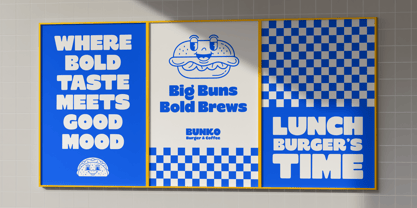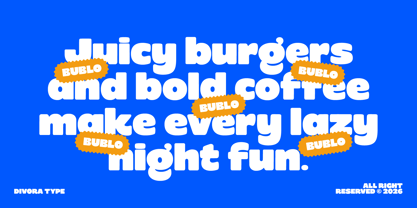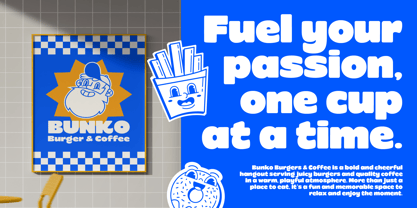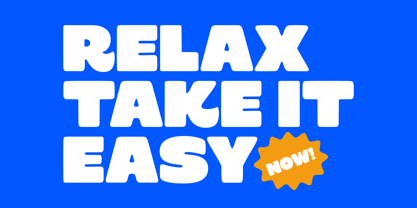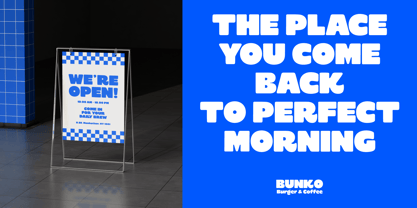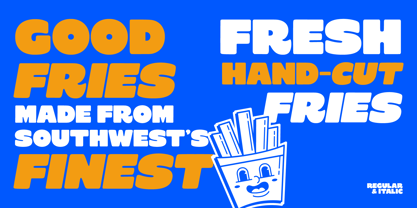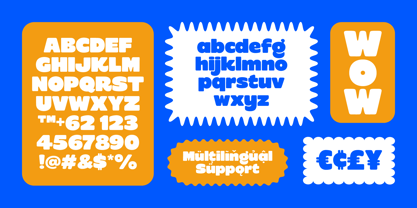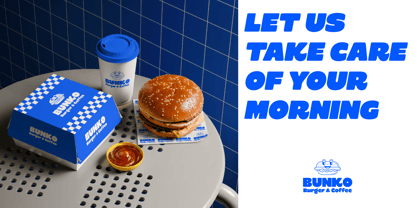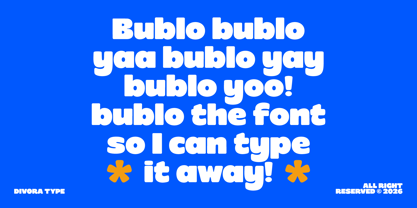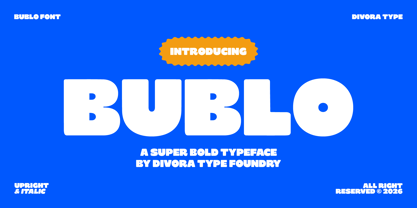
Bublo
by Divora Type
Bublo — Super Bold Display Typeface
Bublo is a super bold display typeface built on one simple idea — that bold can be fun, soft, and full of personality without losing its visual power. Designed with a chubby structure and rounded forms, Bublo brings a sense of warmth and energy to any design it touches.
Rather than relying on sharp edges or aggressive forms, Bublo embraces volume. Every curve is intentionally full, every letter feels inflated, creating a strong yet friendly presence that stands out instantly.
Bublo is defined by its:
-Super heavy weight
-Rounded, bubbly construction
-Large x-height for strong readability
-Soft corners that create a playful tone
The result is a typeface that feels approachable, expressive, and highly memorable — perfect for designs that want to be bold without feeling harsh.
WHAT IT’S BUILT FOR
- Brand identity and logo design
- Food & beverage packaging (especially burgers, coffee, sweets)
- Posters and promotional materials
- Social media graphics
- Children’s and playful branding
- Merchandise and lifestyle products